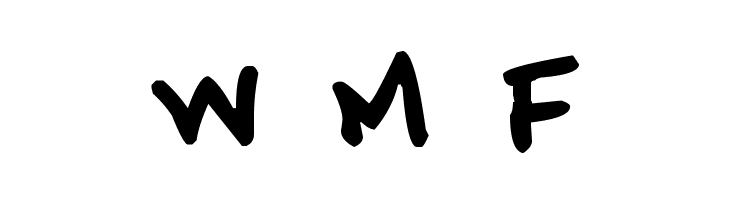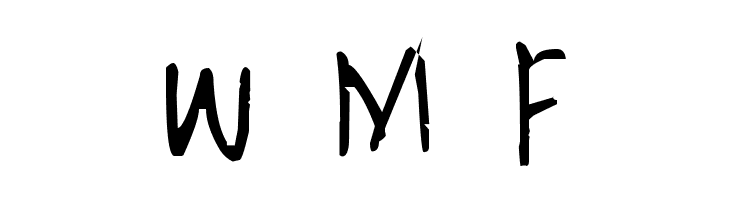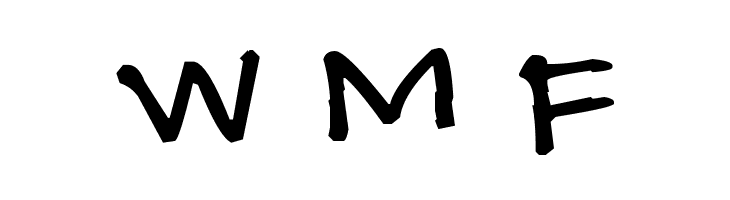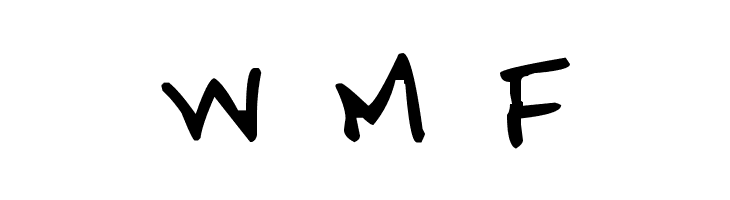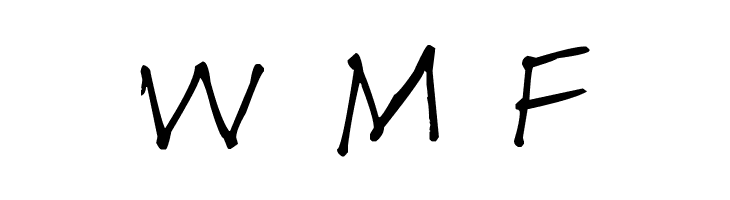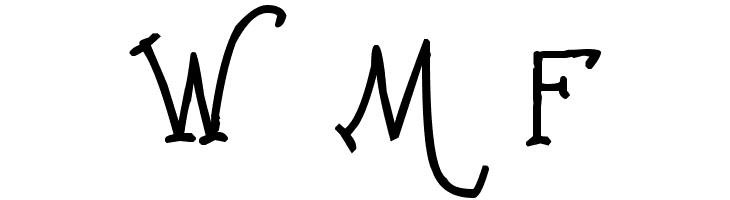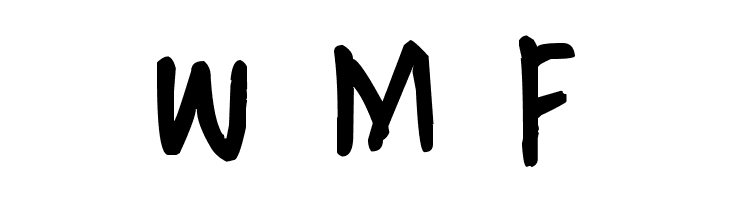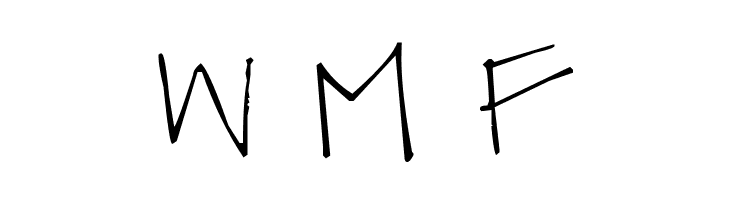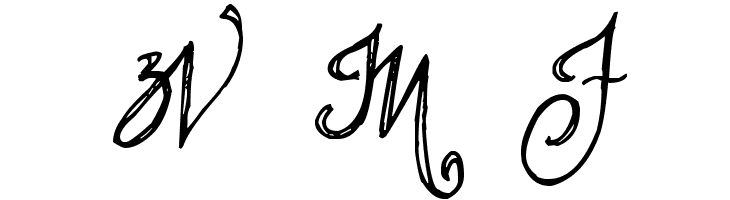
• Pea Sarahloo
A playful, bold handwritten font with dynamic strokes and a casual feel.
• Pea ScrapBrandy
A bold, playful handwritten font with a casual and dynamic style.
• Pea ScrapBrandy Thin
A playful, casual handwritten font with irregular strokes and a lively feel.
• Pea sdflenner
A playful, handwritten font with a casual and dynamic style.
• Pea Shelley
A playful, handwritten font with bold, rounded strokes and a casual, friendly appearance.
• Pea Shelley Thin
A playful, casual handwritten font with a lively and informal style.
• Pea Shirley
A playful, casual handwritten font with fluid strokes and medium contrast.
• Pea Soniablu
A casual, handwritten font with fluid strokes and a personal touch.
• Pea Stacy
A playful, handwritten font with whimsical flourishes and a personal touch.
• Pea Stacy's Doodle Script
A playful, whimsical cursive script with intricate swirls and loops.